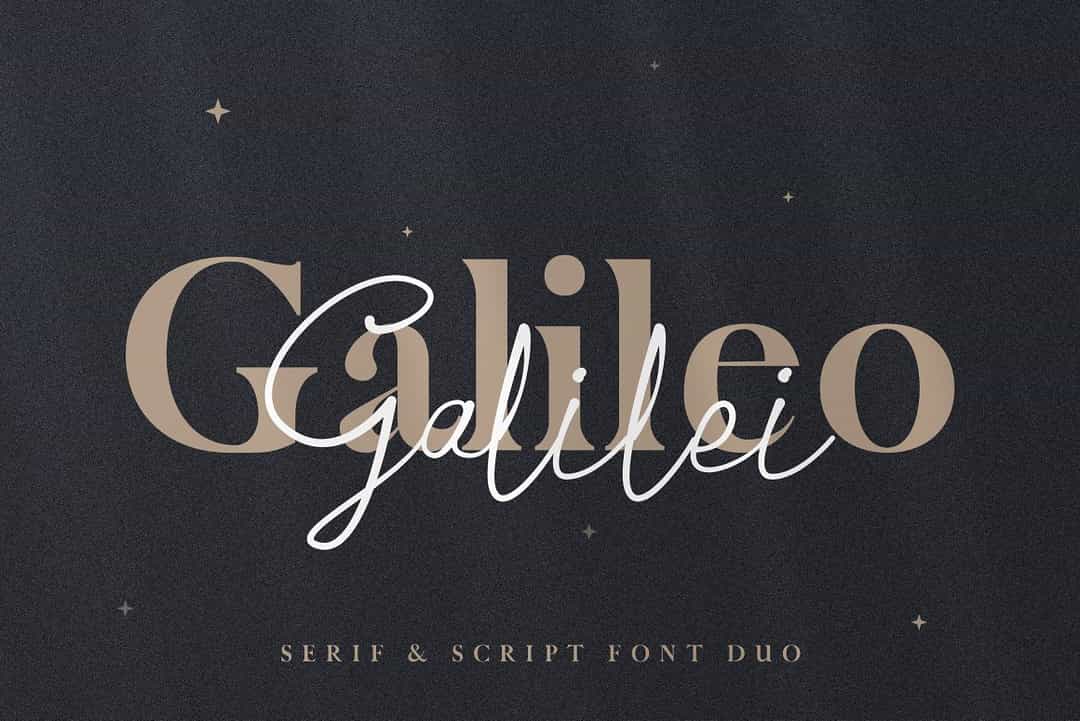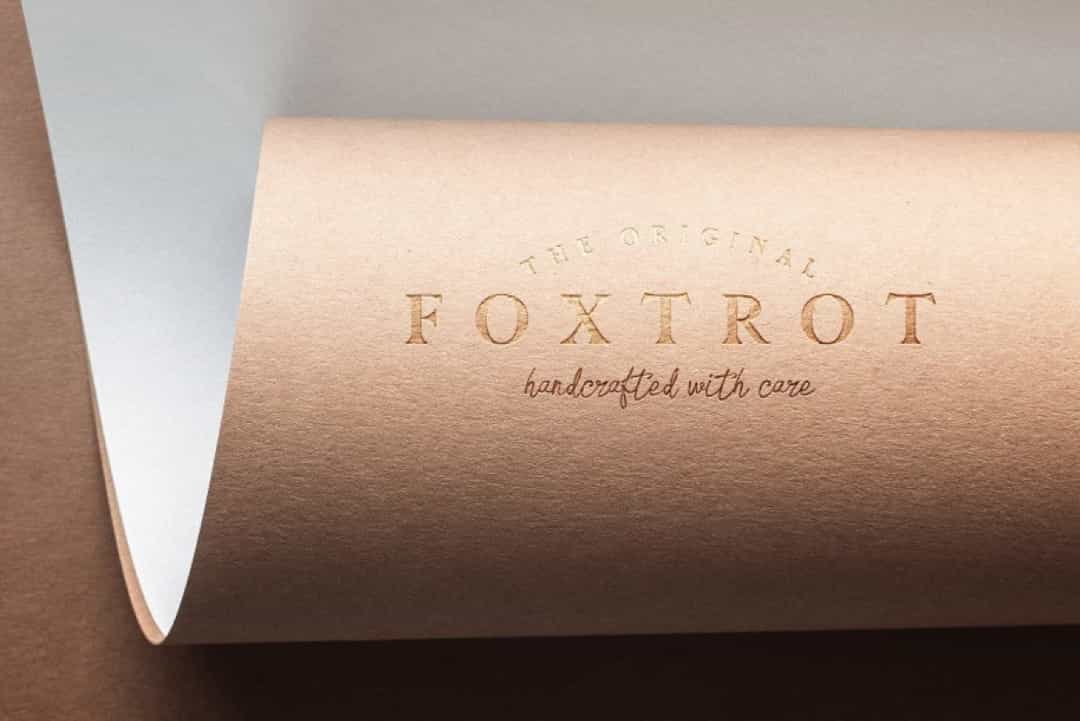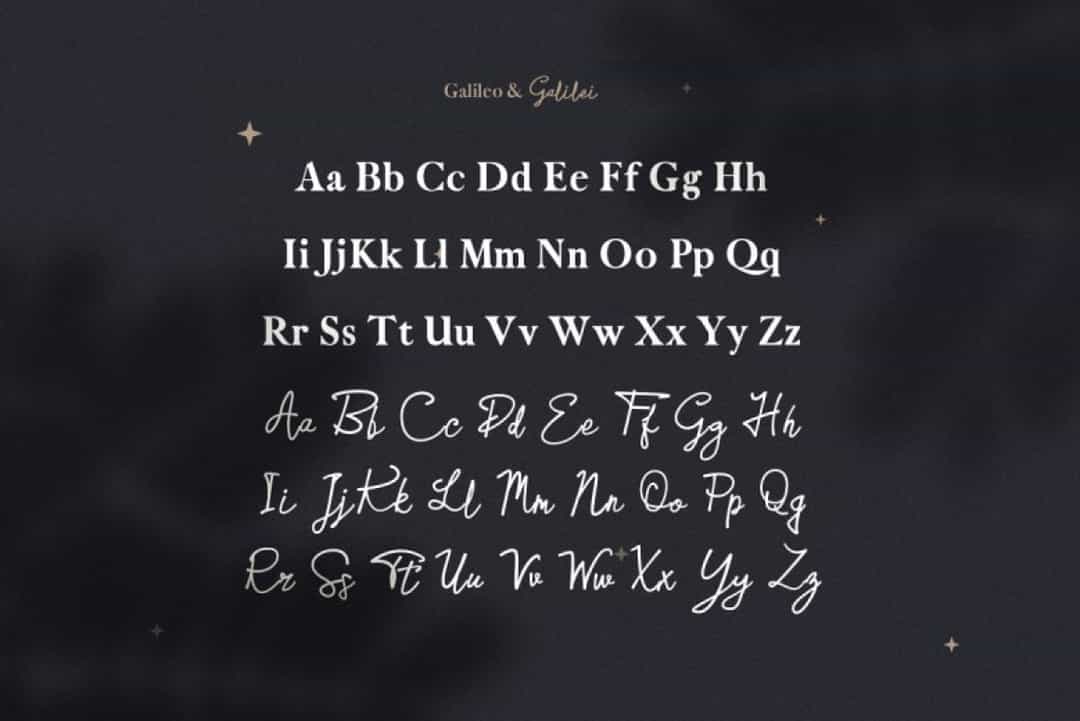
Galilei font is an innovative combination of traditional serif fonts and handwritten scripts, perfect for designing modern invitations, posters, logos, packaging design projects and much more.